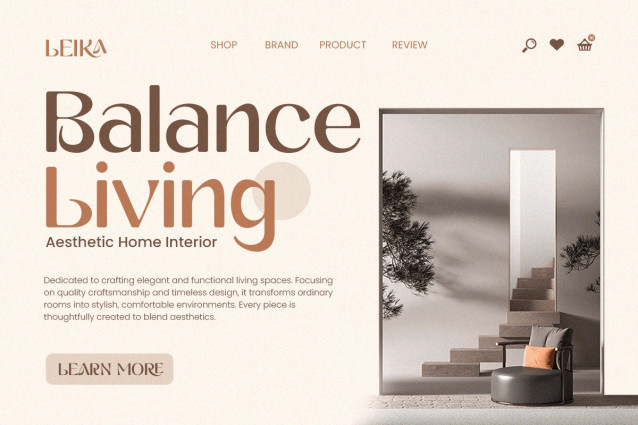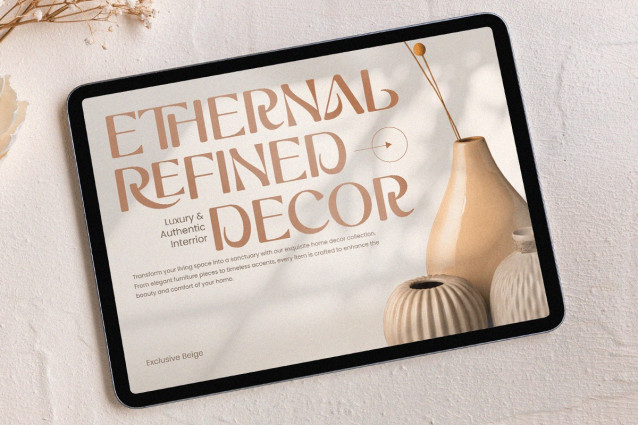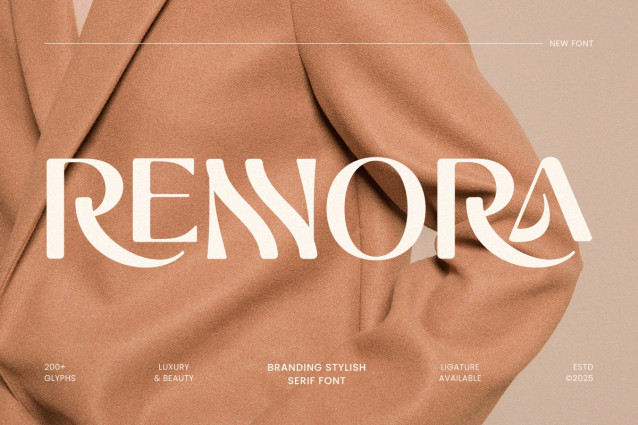
Rennora Font
Rennora Font is an elegant sans-serif typeface designed to bring sophistication and elegance to your visual identity . Ideal for logos, branding projects, stationery, and high-end designs, this typeface combines refined letterforms with modern legibility. With its chic and refined style, RENNORA offers a professional yet creative look, making it perfect for luxury brands, boutiques, and premium marketing materials.